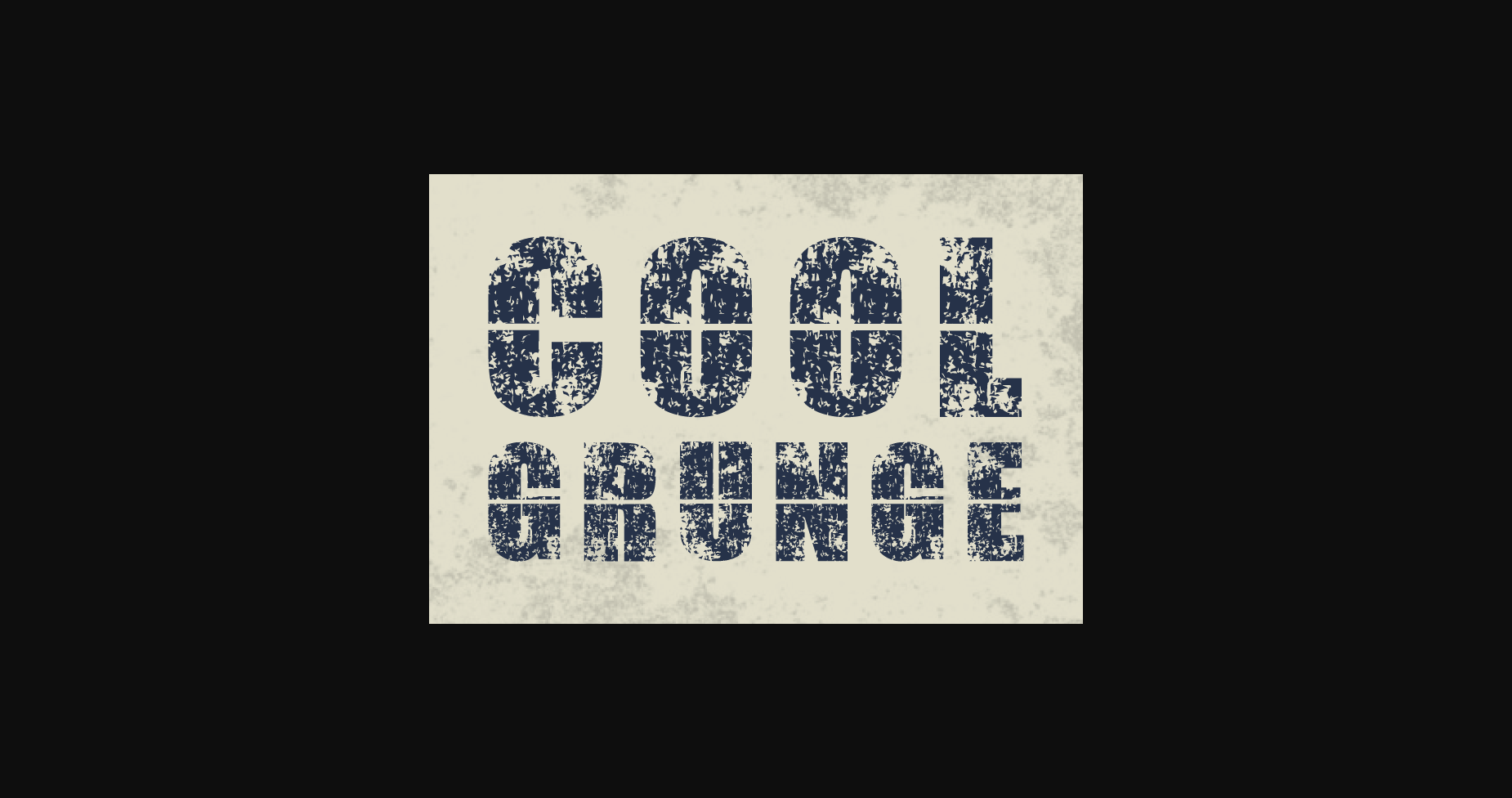
About Cool Grunge Font
This grunge and unique sans-serif font is a real statement-maker, with its edgy and raw design. Cool Grunge’s rough lines and distressed texture create a sense of grit and rebellion, making it perfect for anything that demands a touch of boldness and individuality, from posters and album covers to streetwear branding.